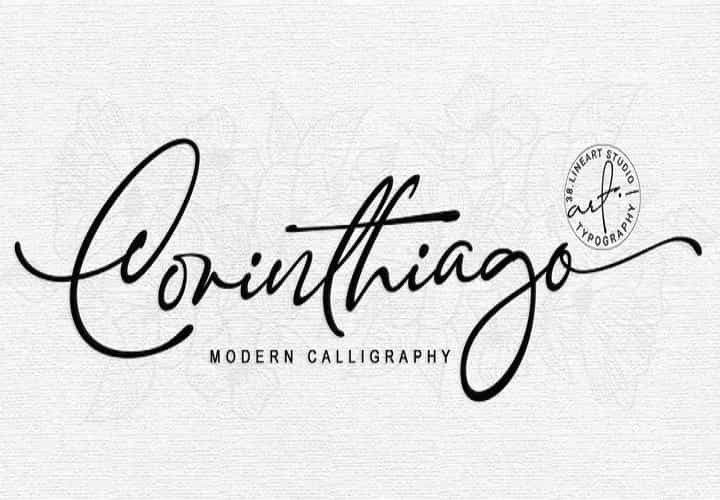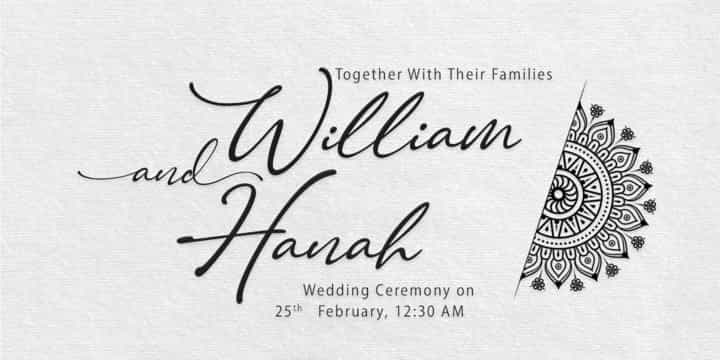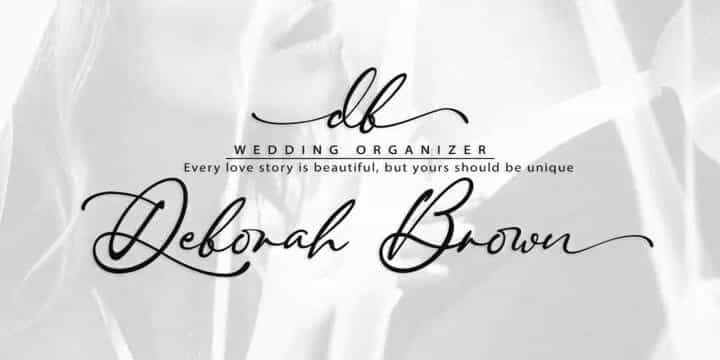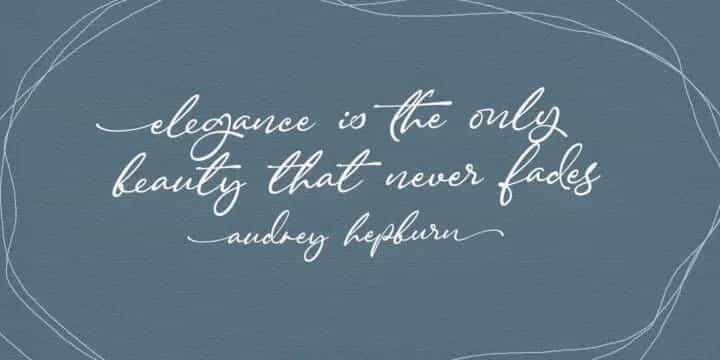
Corinthiago is a beautiful hand-written script typeface that is confident and bold. The font is very gorgeous movement, lively and definitely very elegant. Ideal for logos and printed quotes, badges packaging, insignias and more. It’s also great for headlines, posters or t-shirt, clothing as well as greeting cards. wedding invitation cards, etc.